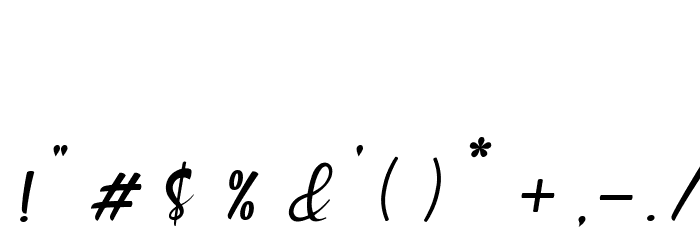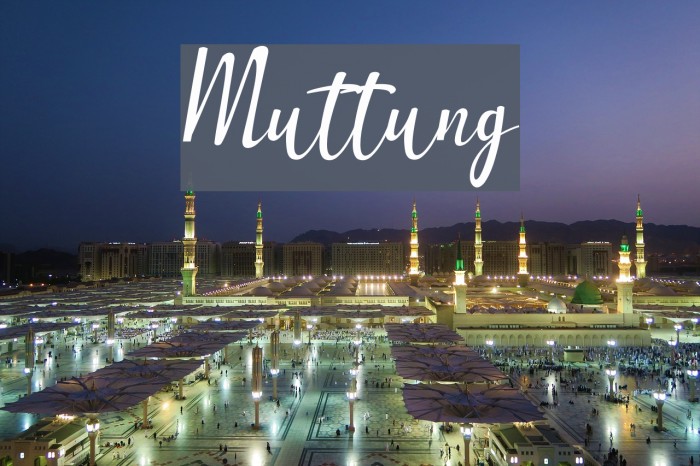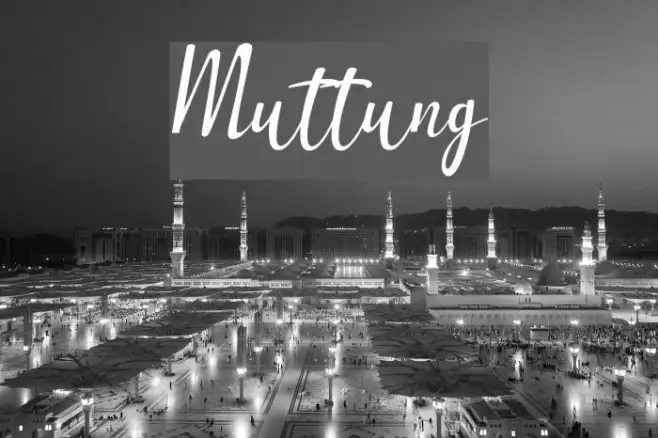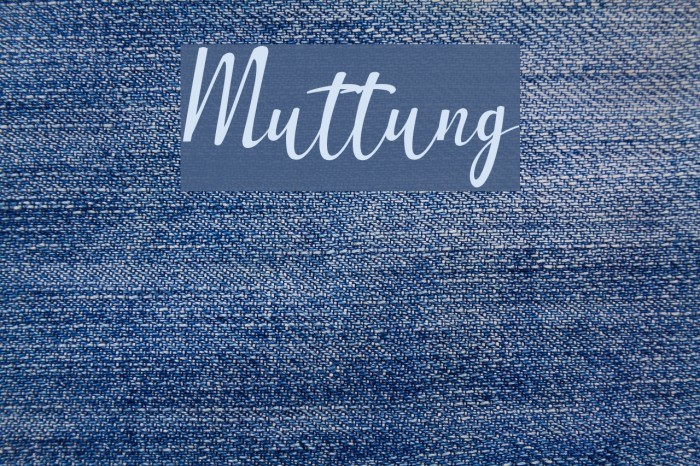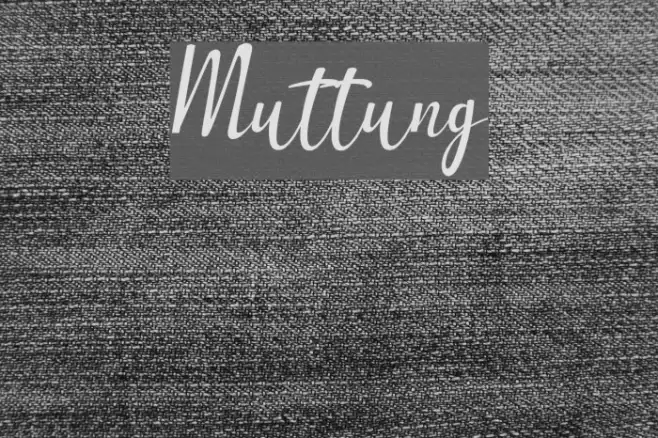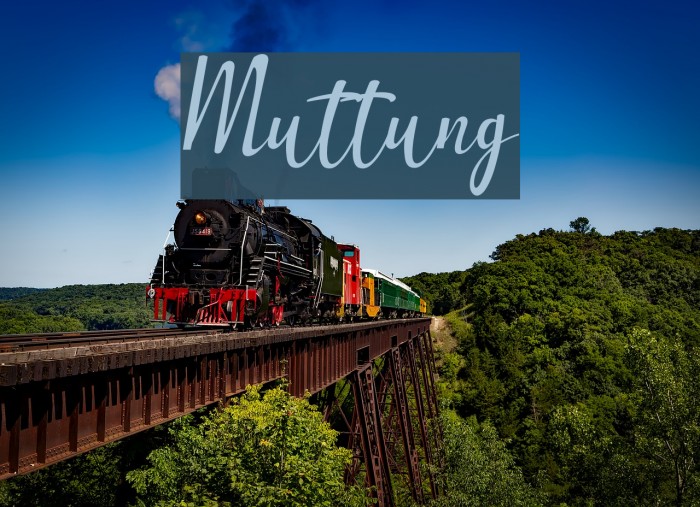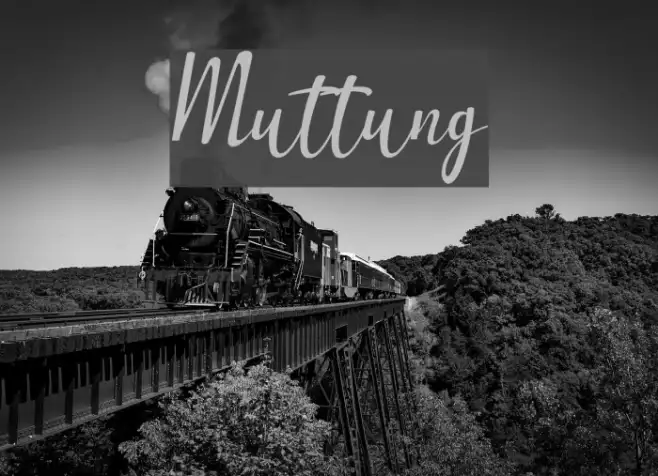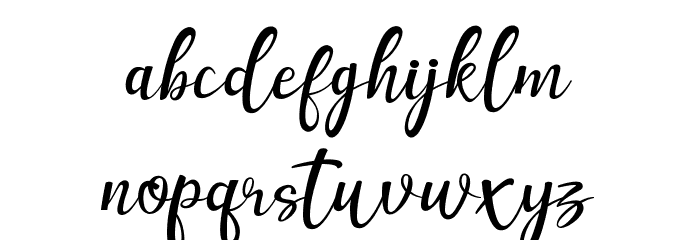
Muttung Font
This font features a flowing, cursive style with elegant loops and swashes, giving it a handwritten appearance. The uppercase letters are tall and slightly slanted, with distinctive flourishes that add a touch of sophistication. The lowercase letters maintain a consistent flow, enhancing readability while preserving the decorative nature. The numerals and special characters are designed to match the overall aesthetic, making them suitable for creative projects. The font's playful yet refined style makes it ideal for invitations, branding, and other design projects that require a personal touch.
A flowing, cursive font with elegant loops and swashes, perfect for creative projects.
• Proposed Projects: Invitations, branding, greeting cards, and creative design projects.
• Category: Script
• Overall Style: Decorative
• Use Case: Logos, Headlines, Invitations